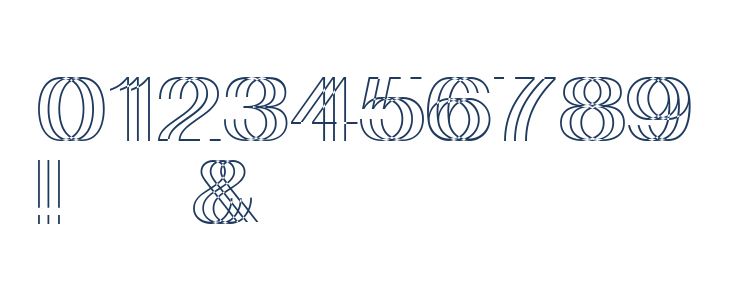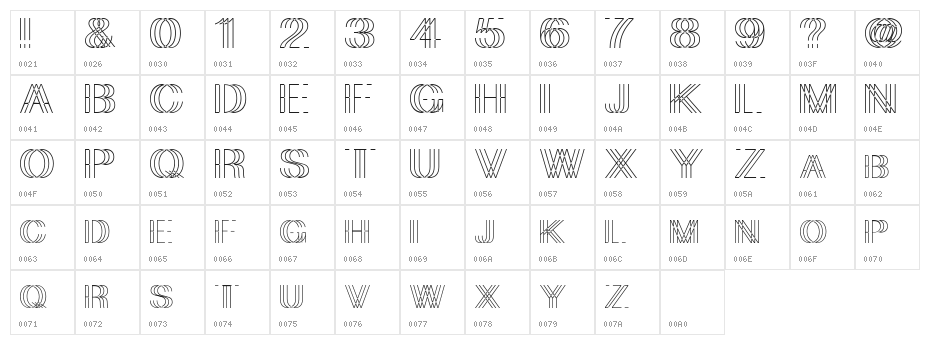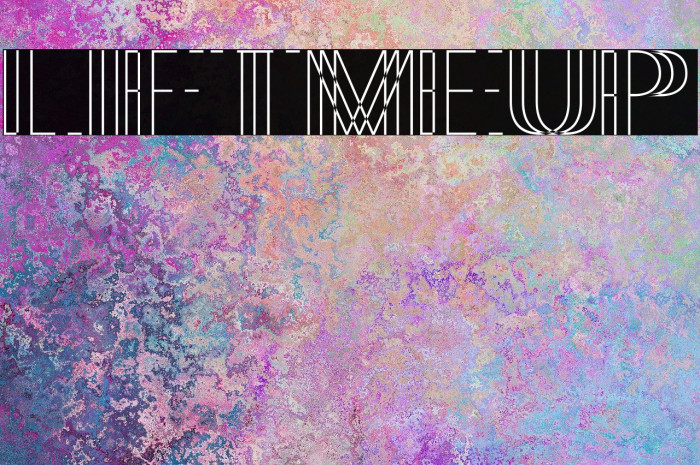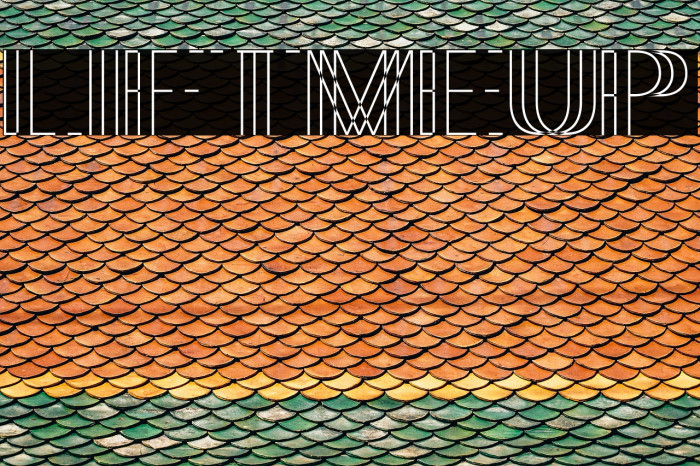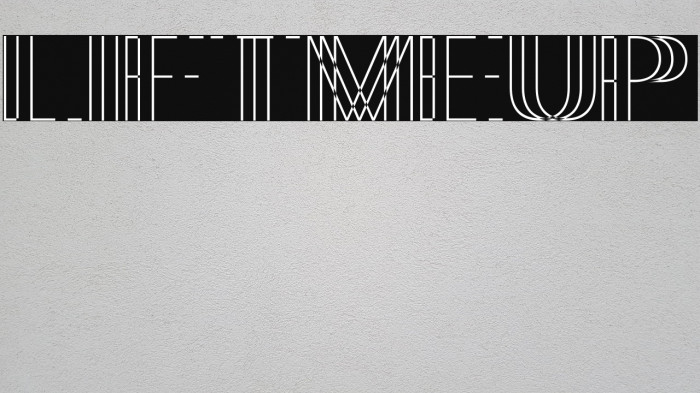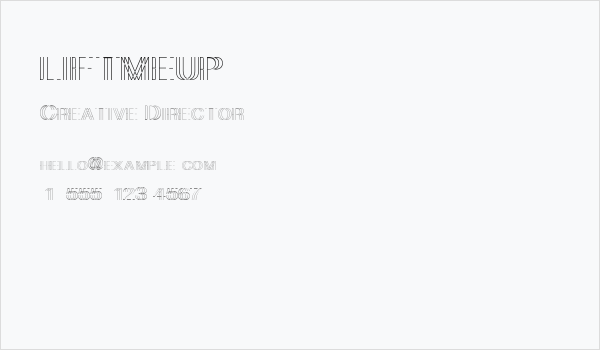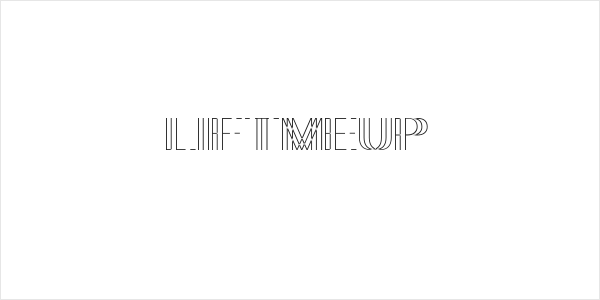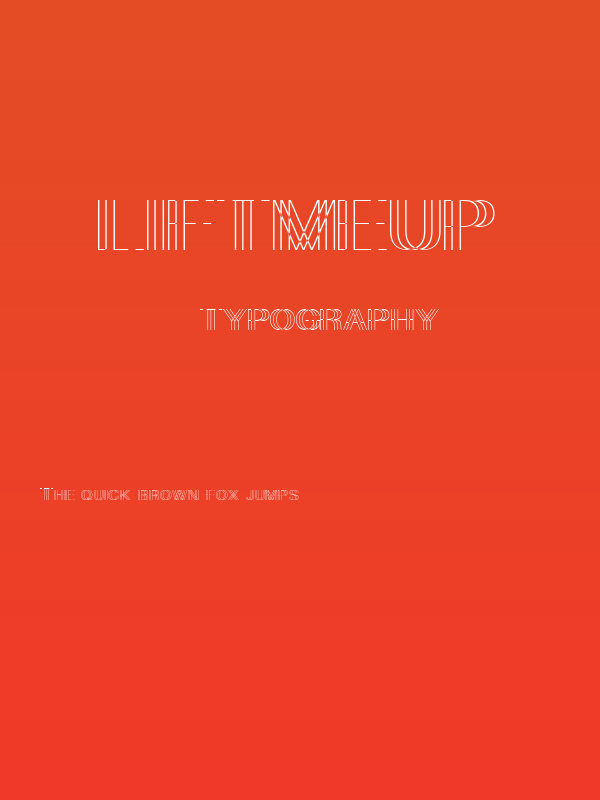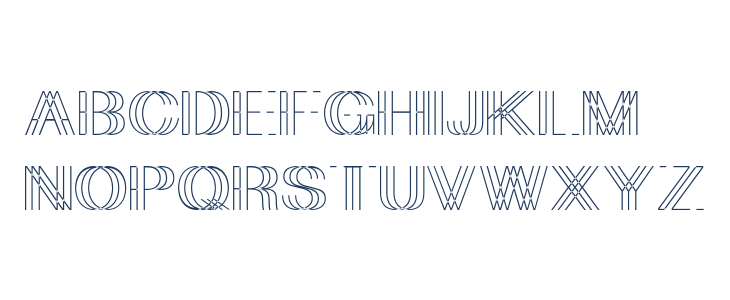
liftmeup Font
liftmeup Description
This font features a unique, decorative style characterized by multiple overlapping lines that create a sense of depth and complexity. The letters are constructed with a series of parallel lines, giving it a modern and artistic appearance. The uppercase and lowercase letters maintain a consistent design, while the numbers and special characters follow the same intricate pattern. This font's distinct look makes it ideal for creative projects where a bold statement is desired. The overall design is both eye-catching and sophisticated, suitable for various artistic applications.
| Proposed Projects | Ideal for branding, posters, album covers, and any project requiring a striking visual impact. |